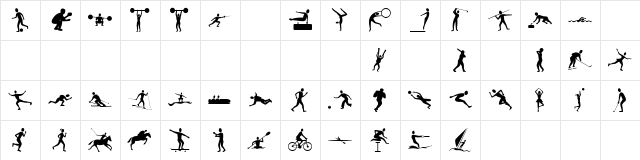
94 Regular Font Preview
94 Regular
Design Context for 94 Typeface
94 is a composed and adaptable typeface that performs quietly and consistently across a wide range of design contexts.